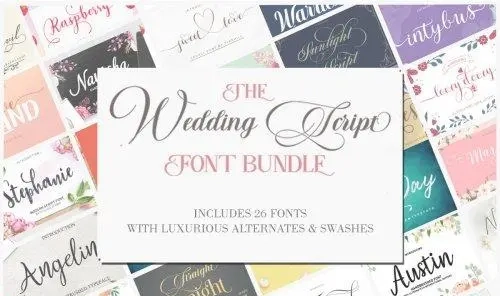
The Wedding Script Font Bundle – 26 Fonts
Introducing The Wedding Script Font Bundle, a carefully curated collection of 26 elegant script fonts designed to add a touch of sophistication to your wedding invitations, stationery, and other celebratory materials. Each font in this bundle features unique characteristics, ensuring you have a versatile selection to match various themes and styles.
• 26 unique script fonts
• Variety of styles for different design needs
• High-quality typography for print and digital use
Perfect for branding, logos, web design, print materials, and UI elements, these fonts will elevate your projects with their stylish flair.